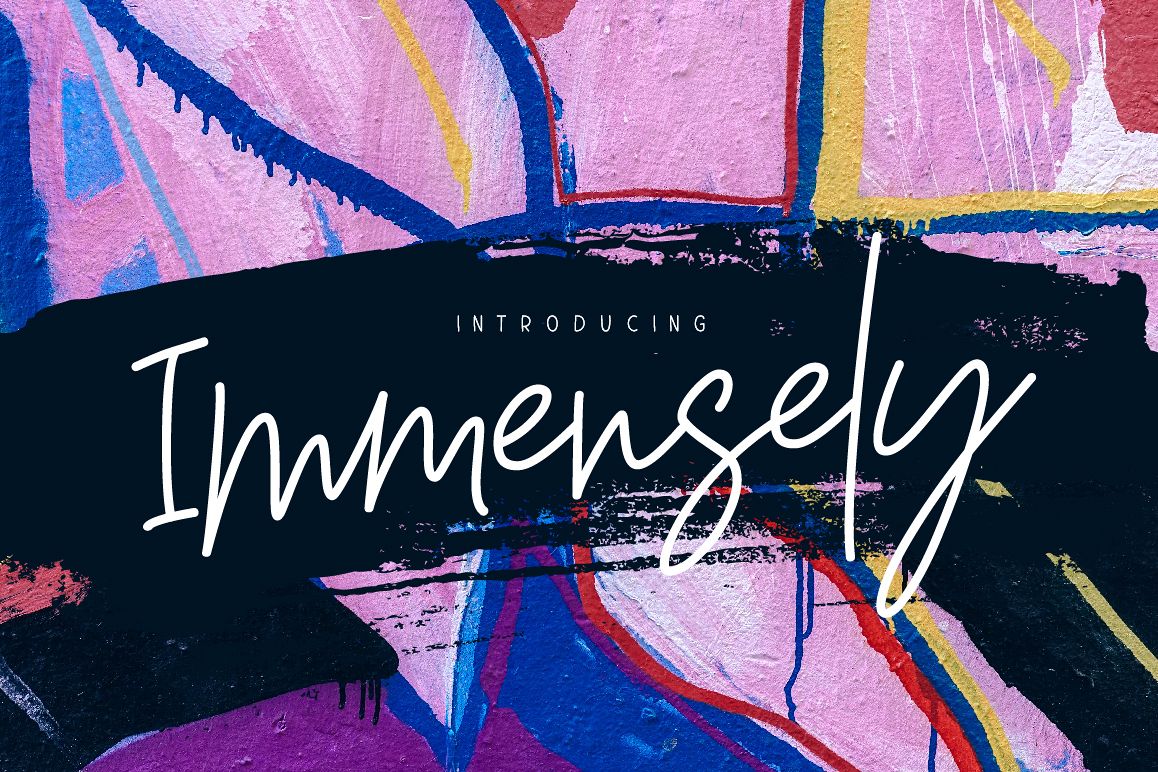
Immensely
Immensely is a handwritten font. It comes with uppercase and lowercase characters, large set of punctuation glyphs, numerals, ligatures, cyrillic characters and multilingual support.
Perfect for logos, greeting cards, product packaging, t-shirt, handwritten quotes and etc.